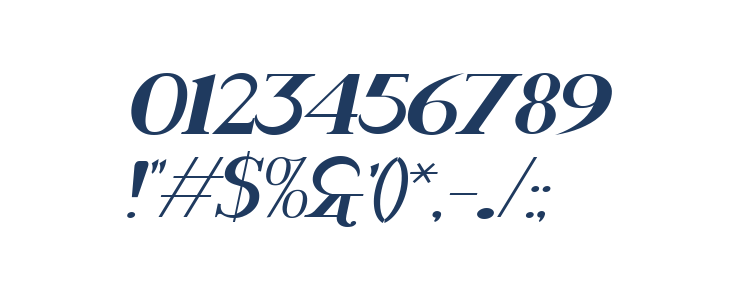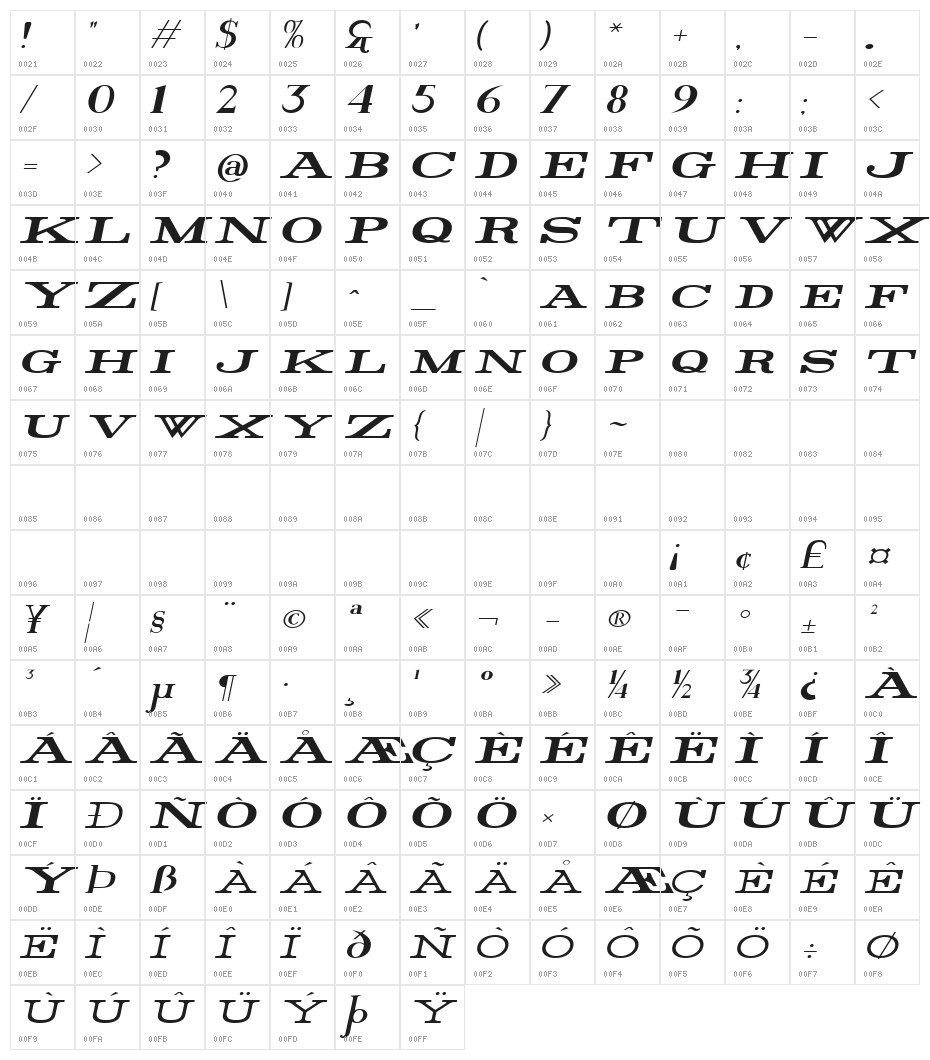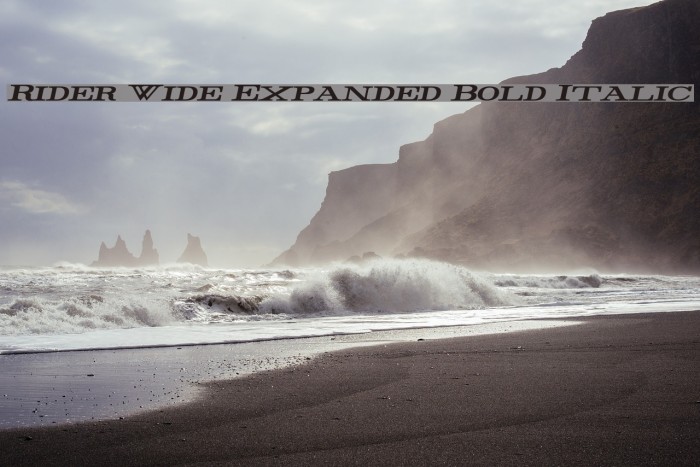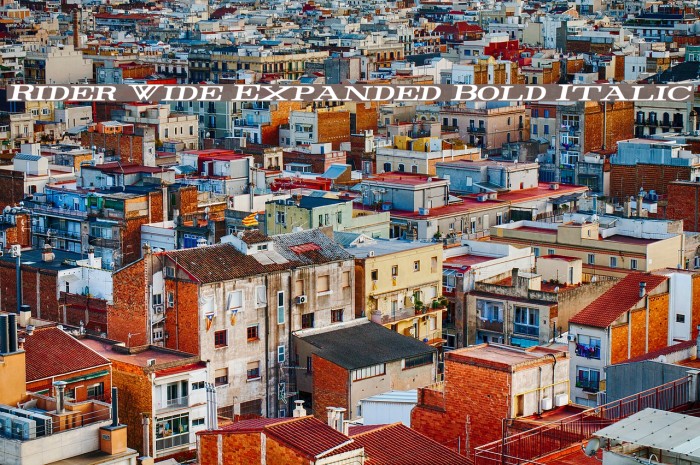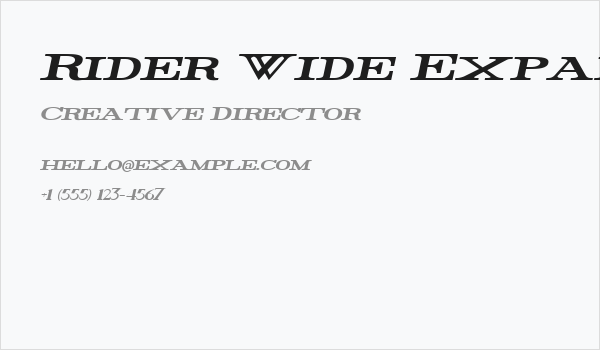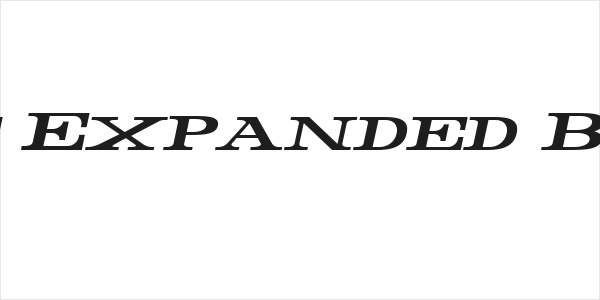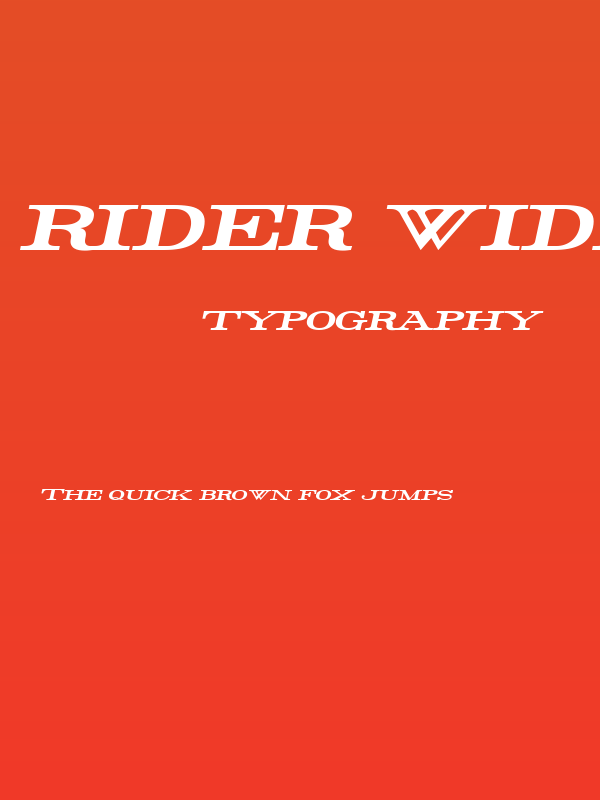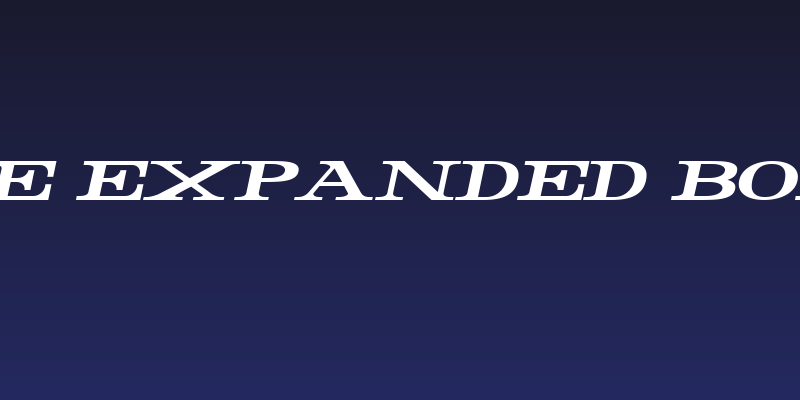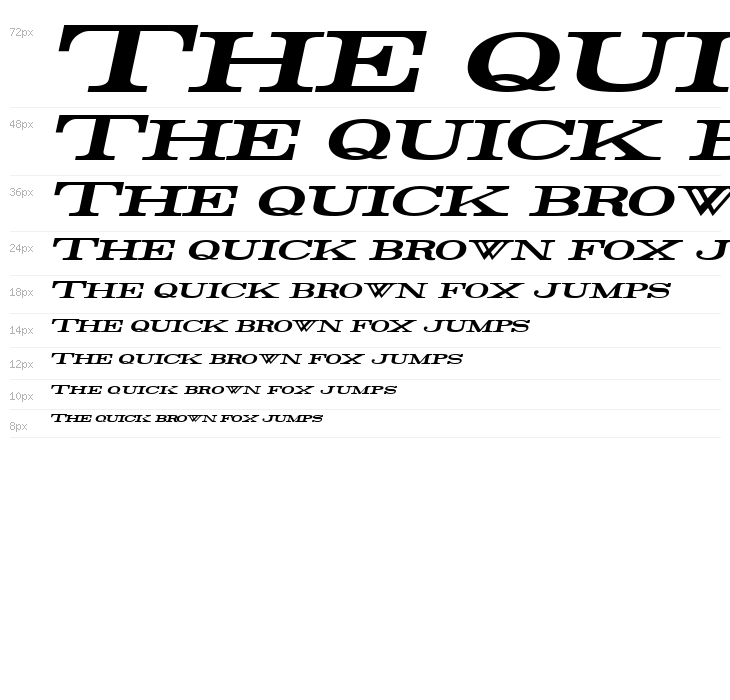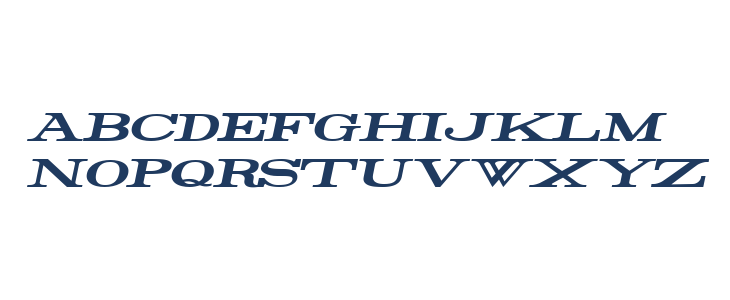
Rider Wide Expanded Bold Italic Font
Rider Wide Expanded Bold Italic Description
This font features a bold and italic style with a distinctly expanded width, giving it a commanding presence. The characters are elegantly slanted, adding a dynamic and energetic feel. The strokes are thick, providing high contrast and making each letter stand out prominently. The design is modern yet retains a classic touch, making it versatile for various applications. The spacing between characters is slightly wide, enhancing readability while maintaining a cohesive look. This font is well-suited for projects that require a strong and impactful visual statement.
| Proposed Projects | Ideal for headlines, branding, advertising, and poster design. |